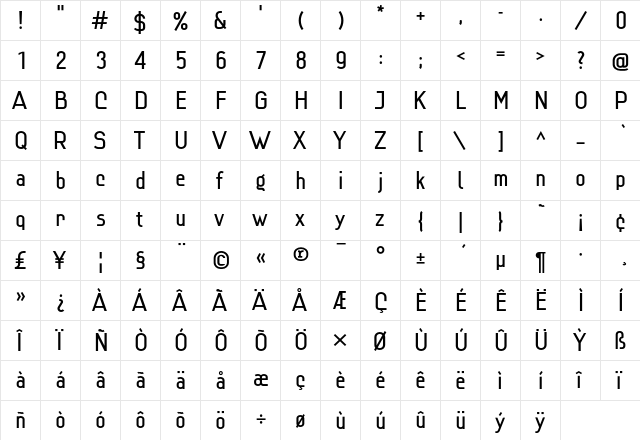
Lindau Regular
| Foundry | Markus Waeger, |
| Designer | Markus Waeger |
Design Context for Lindau Typeface
Lindau offers clean, dependable letterforms without strong stylistic allegiance, making it a practical choice for designers who need flexibility.